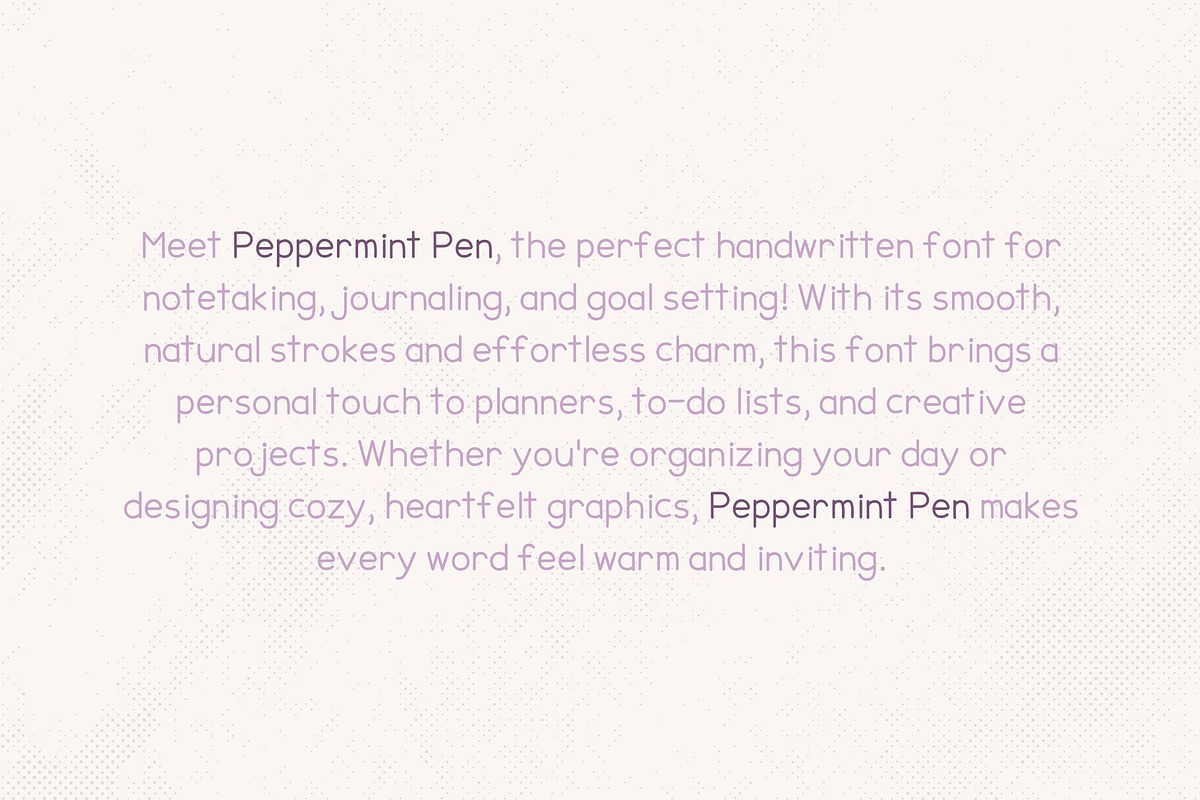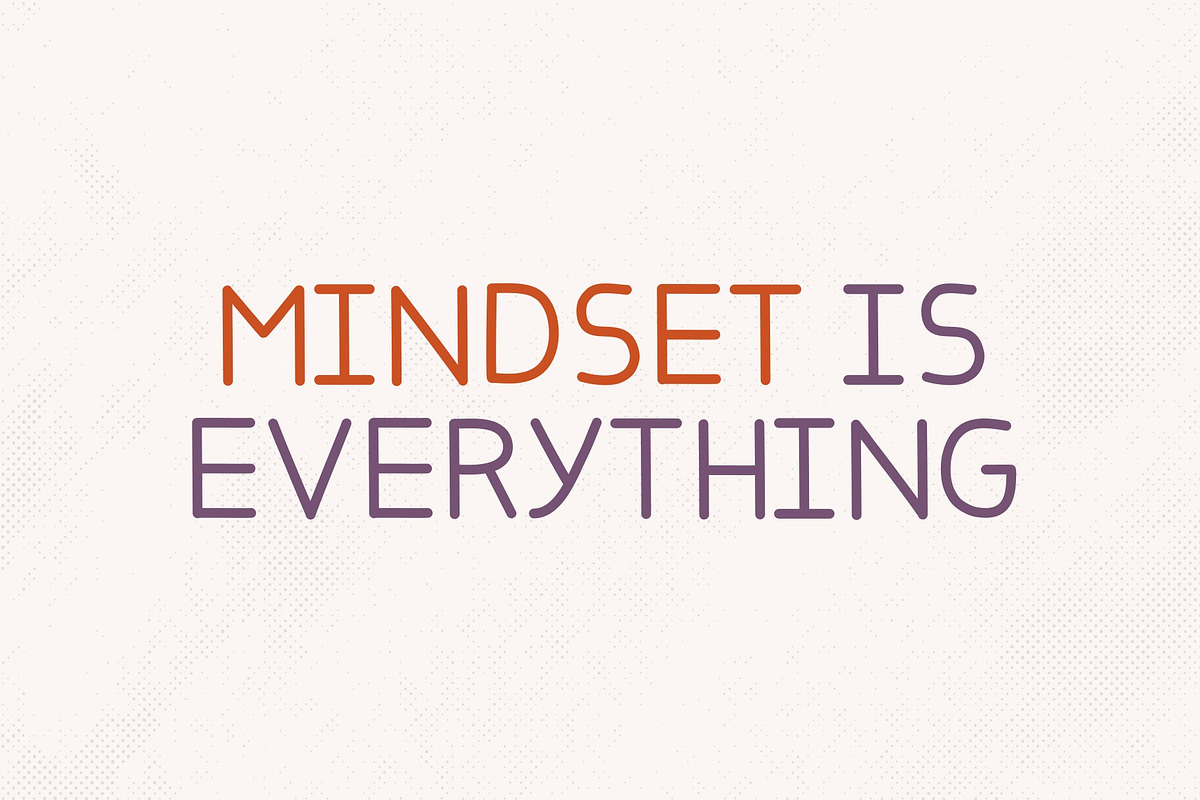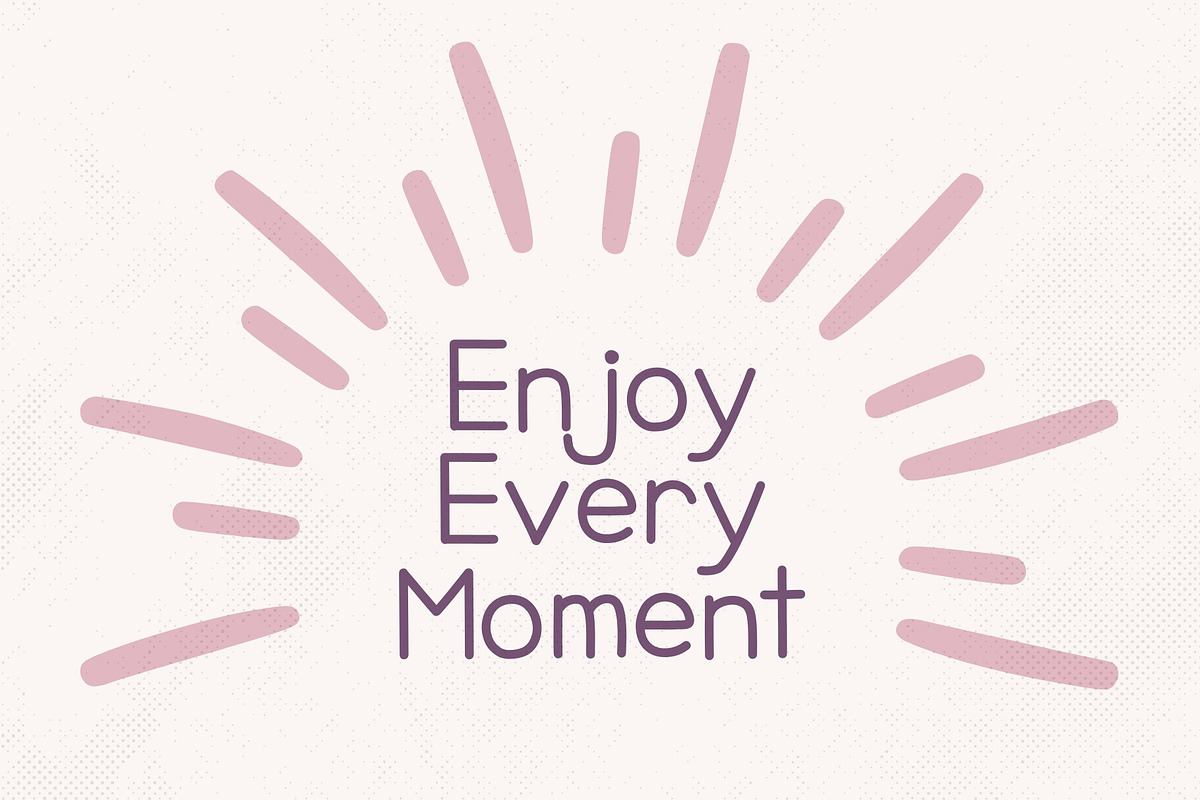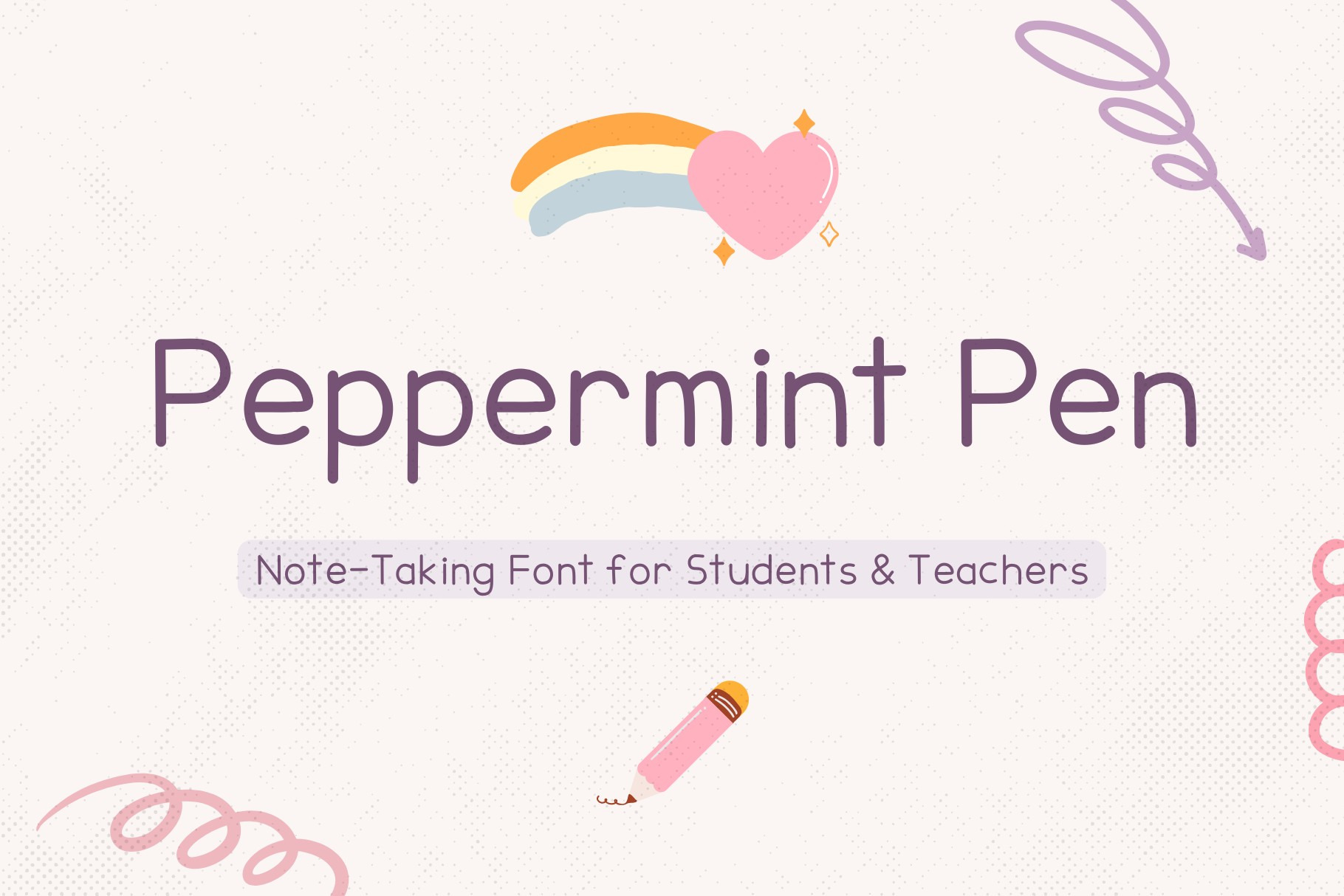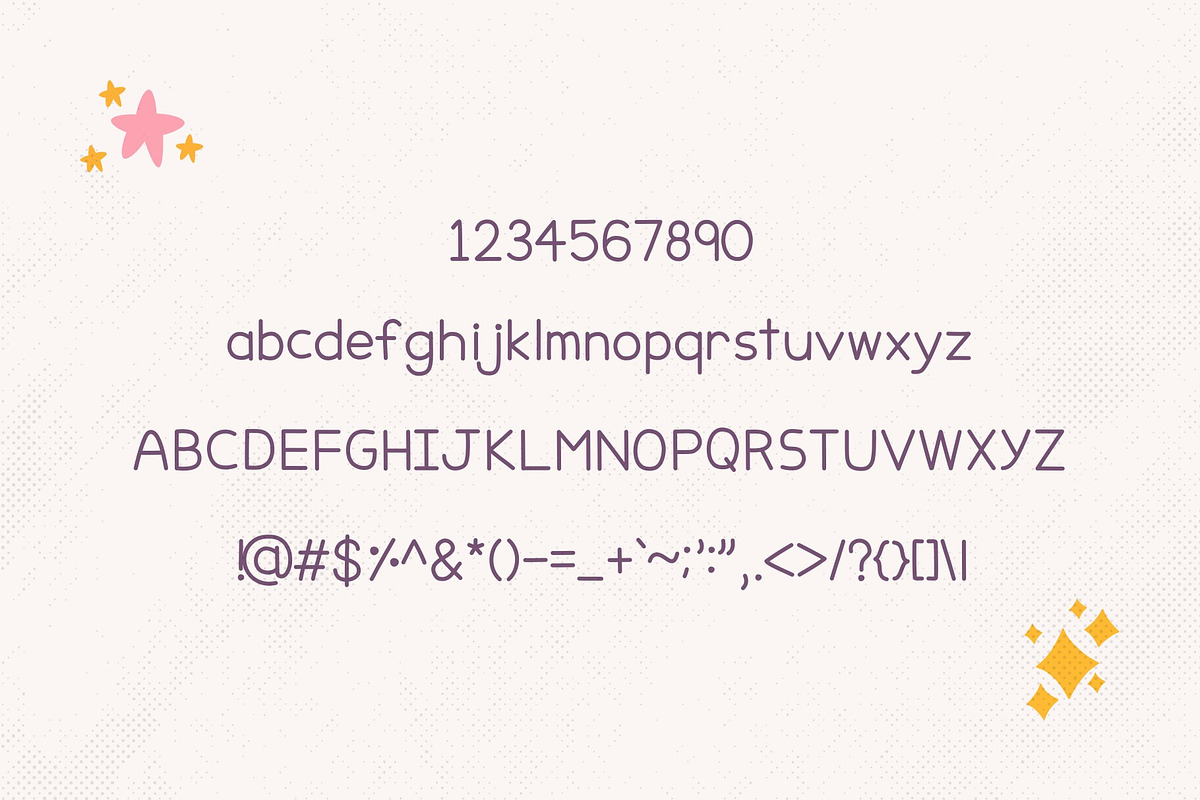
Peppermint Pen - Handwritten Font
Meet Peppermint Pen, the perfect handwritten font for notetaking, journaling, and goal setting! With its smooth, natural strokes and effortless charm, this font brings a personal touch to planners, to-do lists, and creative projects. Whether you're organizing your day or designing cozy, heartfelt graphics, Peppermint Pen makes every word feel warm and inviting.
- ✅ Perfect for: Digital & printed planners, notes, goal tracking, bullet journals, and more!
Keep your thoughts flowing with Peppermint Pen! 🖊️